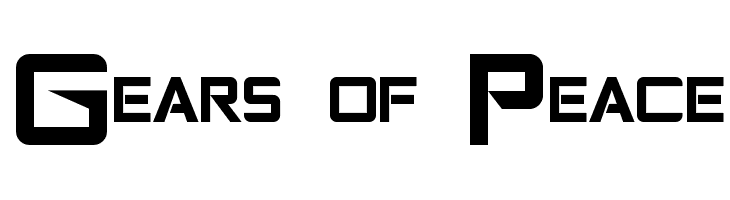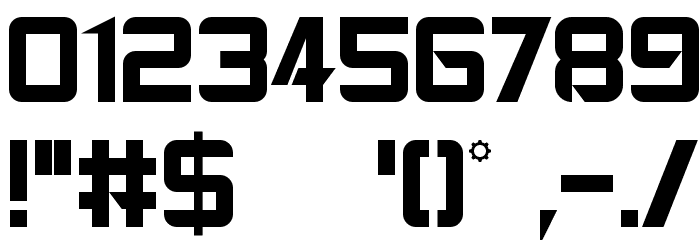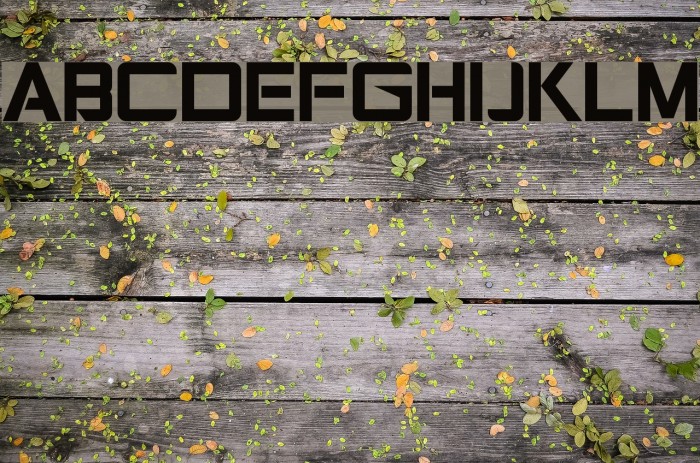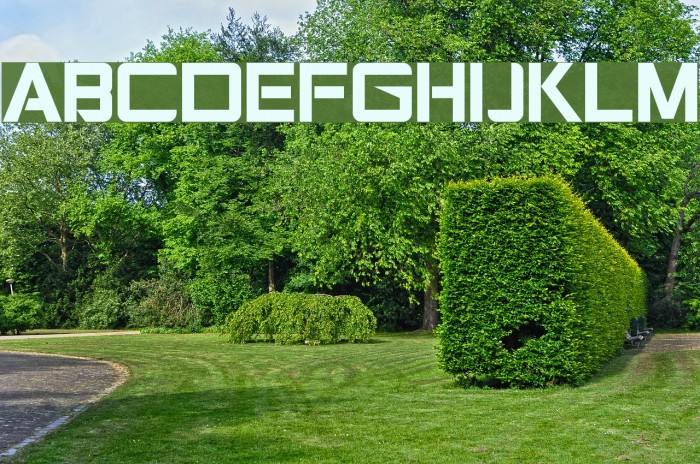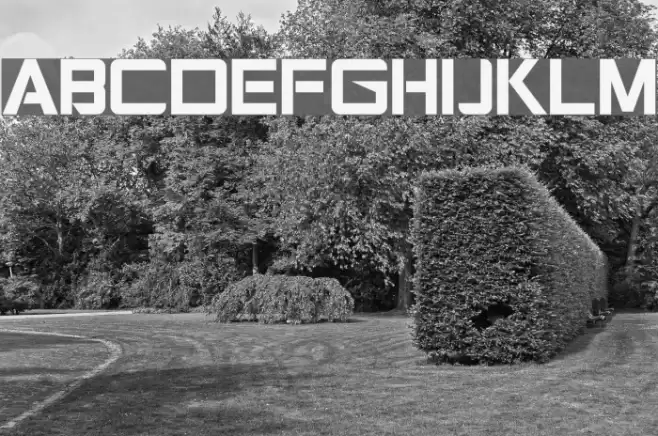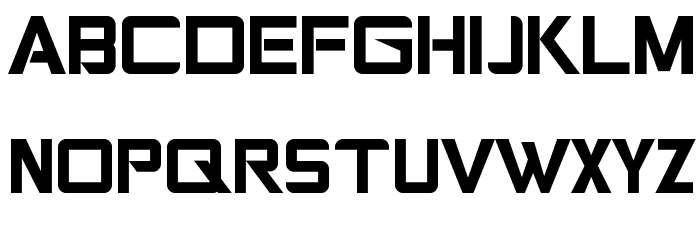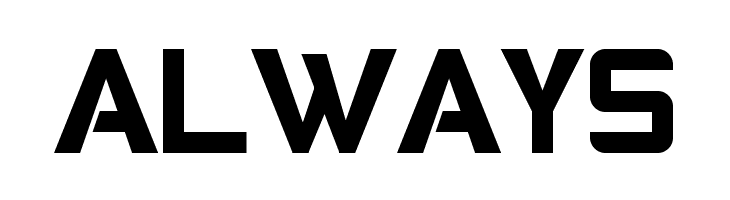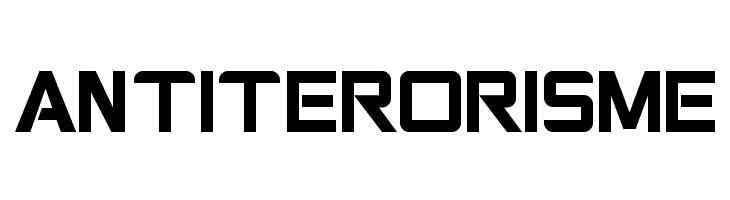
Gears of Peace Font
Gears of Peace Description
This font features a bold, geometric design with a futuristic and industrial feel. The characters are constructed with sharp angles and straight lines, giving them a mechanical and robust appearance. The uppercase and lowercase letters maintain a consistent style, with a uniform height and width that enhances readability. The numerals are equally bold and follow the same geometric pattern, ensuring a cohesive look across all characters. Special characters are designed with the same attention to detail, making them suitable for various applications. The overall aesthetic is modern and assertive, making it ideal for projects that require a strong visual impact.